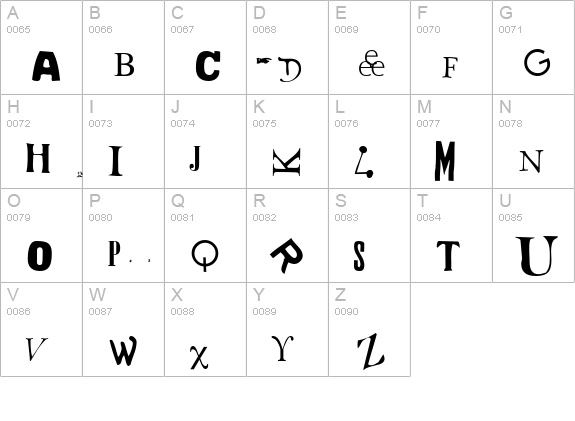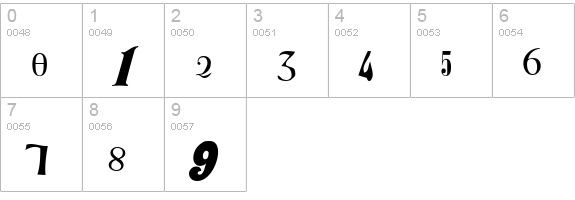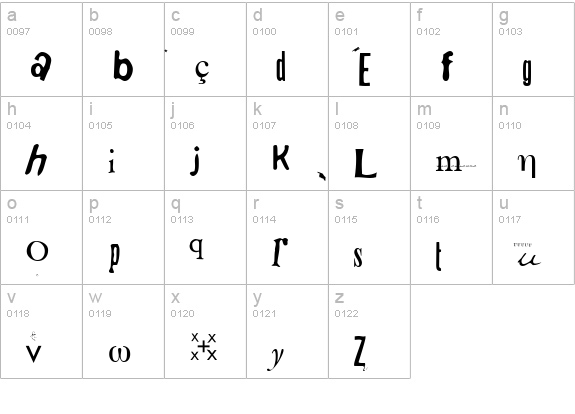
P22 Dada UltraDemiBoldMediumObliqueCondensed Font Details
The P22 Dada UltraDemiBoldMediumObliqueCondensed font is a unique and eye-catching typeface that exudes creativity and artistic expression. Its bold and condensed design captures the essence of the Dada movement, known for its avant-garde and rebellious nature. With its distinct slanted and geometric letterforms, this font is perfect for projects that require a touch of edginess and unconventional flair. Its condensed nature allows for efficient use of space without sacrificing legibility, making it an ideal choice for headlines, logos, and other design elements that need to make a bold and impactful statement. The P22 Dada UltraDemiBoldMediumObliqueCondensed font is freely available to download at FontsMarket.com. This means that designers, artists, and enthusiasts can easily access and utilize this visually striking font for both personal and commercial projects. Whether you're creating posters, advertisements, or digital artwork, this font will undoubtedly add a touch of artistic sophistication to your work. Embrace the spirit of the Dada movement and let your creativity run wild with the P22 Dada UltraDemiBoldMediumObliqueCondensed font. Download it for free at FontsMarket.com today and unleash the power of artistic expression in your designs.